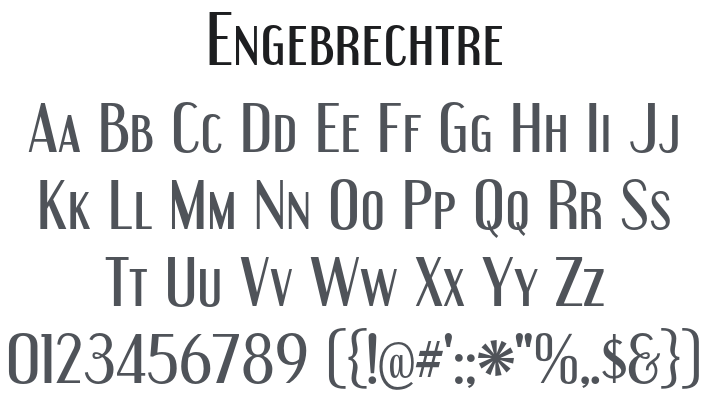
Engebrechtre Font Family
About Engebrechtre
Engebrechtre is a compact sans-serif with flat-sided letterforms and high contrast strokes that evoke 1920s industrial signage — sturdy yet elegant, with a semi-mechanical character. Available in two weights, two widths, and italics, making it genuinely versatile. Great for editorial headlines, vintage branding, packaging, Art Deco-themed posters, and any design needing early 20th-century sophistication.